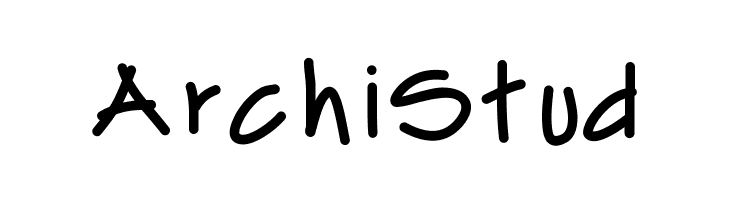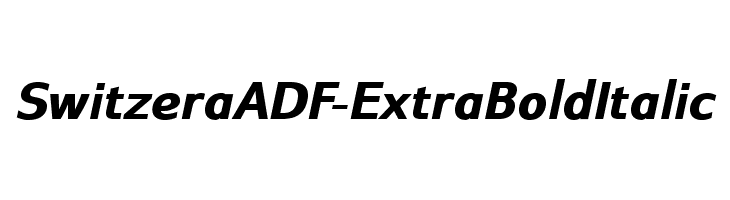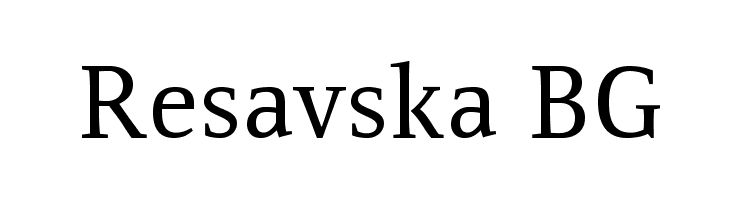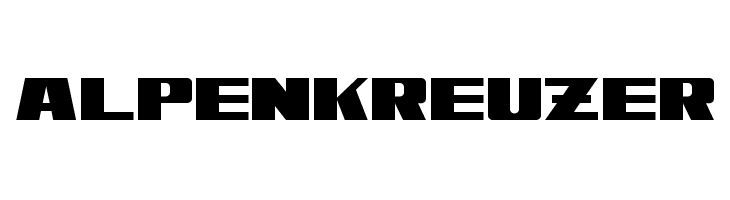
A playful, handwritten font with a casual and friendly style.
A bold, italic font with a modern and dynamic style.
A playful, hand-drawn font with a whimsical and friendly style.
A classic serif font with a modern touch, offering elegance and readability.
A bold, geometric font with strong, block-like characters and a modern aesthetic.